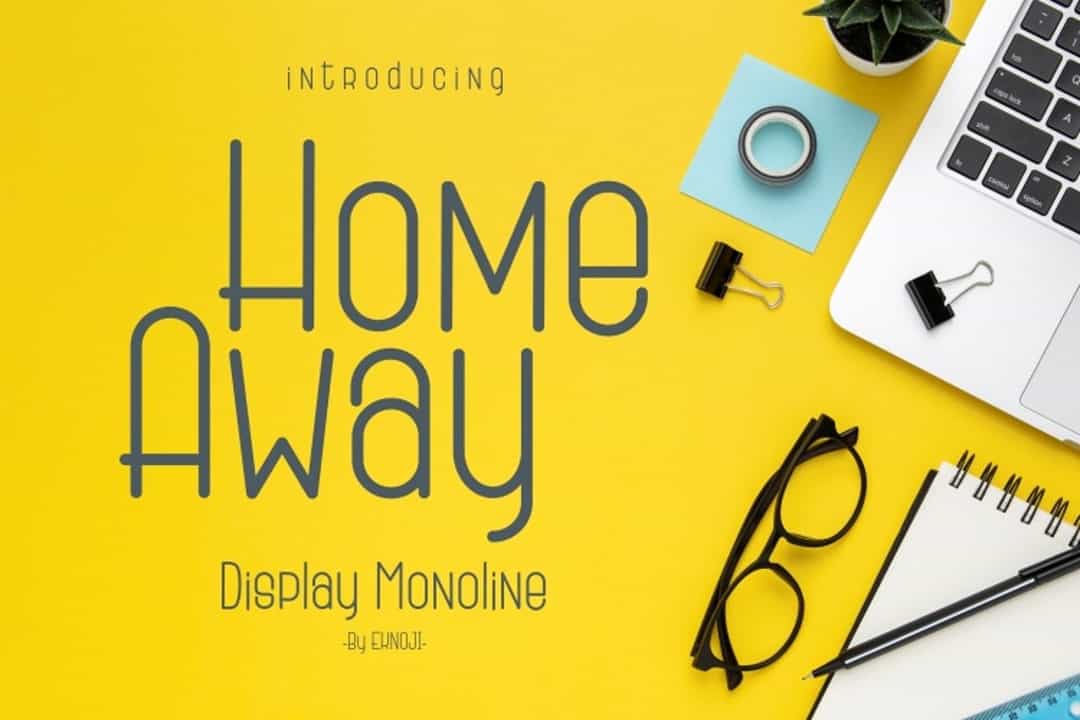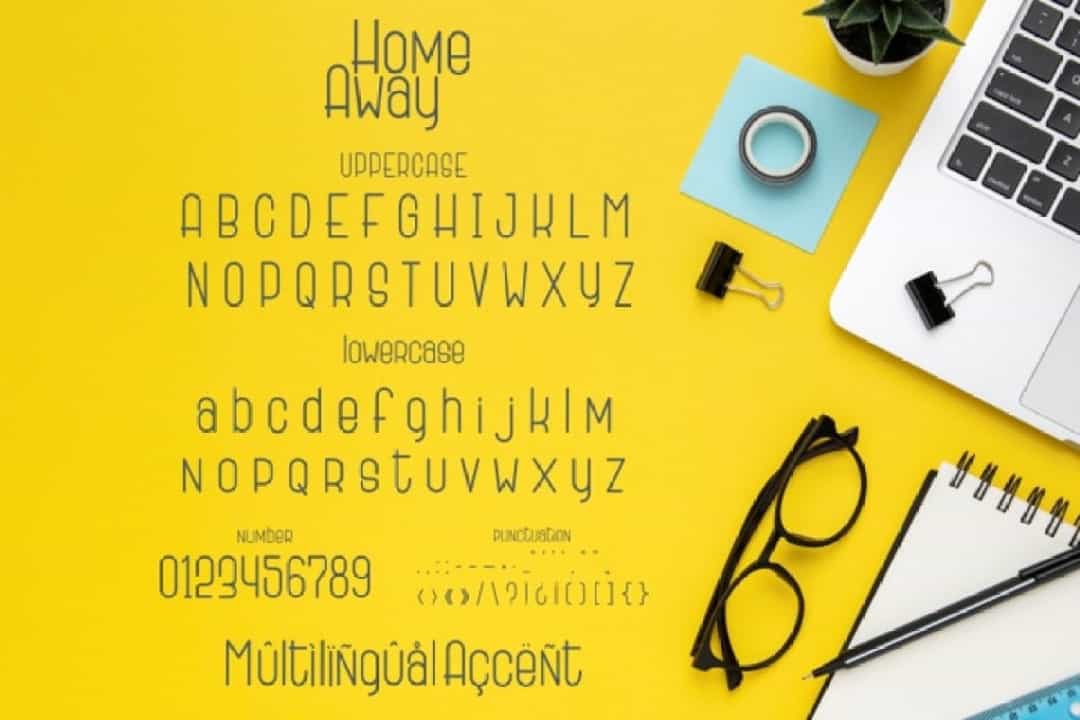
Home Away Font
Discover Home Away Font, part of the   Sans Serif Display Monoline  Logos Personal collection—a versatile and unique font perfect for adding a personal touch to your projects. Download it for free and enjoy crafting designs with style, from invitations to social media posts. This font is available exclusively for personal use, giving you the freedom to create without limits. Unlock your creativity with Home Away Font today!
This font is a display Monoline font perfect for use in different projects including logos and branding, invitation, wedding stationery, ads, social media posts, packaging, product labels, product designs, photography watermarks, and special occasions among others.